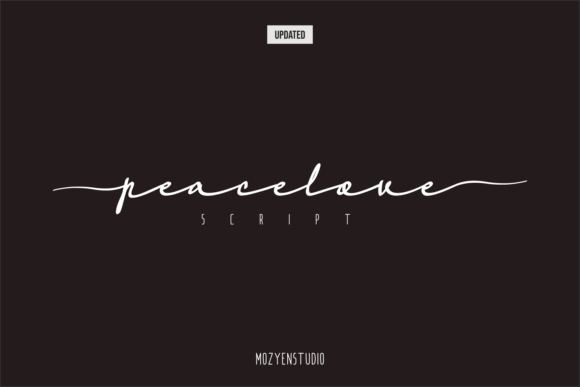
Unleash your creativity with Peacelove, the breathtaking script font family that will captivate your audience with its cool vibe and delicate beauty. Dive into a world of endless possibilities, where your words come alive with an artistic touch that's sure to leave a lasting impression.
As you explore Peacelove's diverse collection, you'll discover a symphony of styles, each with its own distinctive personality. From the graceful curves of "Peacelove Regular" to the playful elegance of "Peacelove Slant," there's a font perfect for every occasion.
Indulge in the beauty of Peacelove's intricate details, meticulously crafted to evoke a sense of wonder and inspiration. Each letter dances across the page, adorned with delicate flourishes and swashes that add a touch of enchantment to your designs.
With Peacelove, you'll effortlessly create stunning quote designs that resonate with your audience. Its thin and charming structure provides the perfect canvas for your words, allowing them to shine with a brilliance that's impossible to ignore.
Whether you're a seasoned designer seeking a new muse or a creative enthusiast looking to elevate your projects, Peacelove is the font family you've been searching for. Its versatility knows no bounds, making it the ideal choice for crafting logos, branding, social media posts, invitations, and any other project that demands a touch of elegance.
Don't settle for ordinary fonts that blend into the background. Embrace the beauty of Peacelove and watch your designs transform into captivating works of art. Let your imagination soar and experience the joy of creating designs that speak volumes.